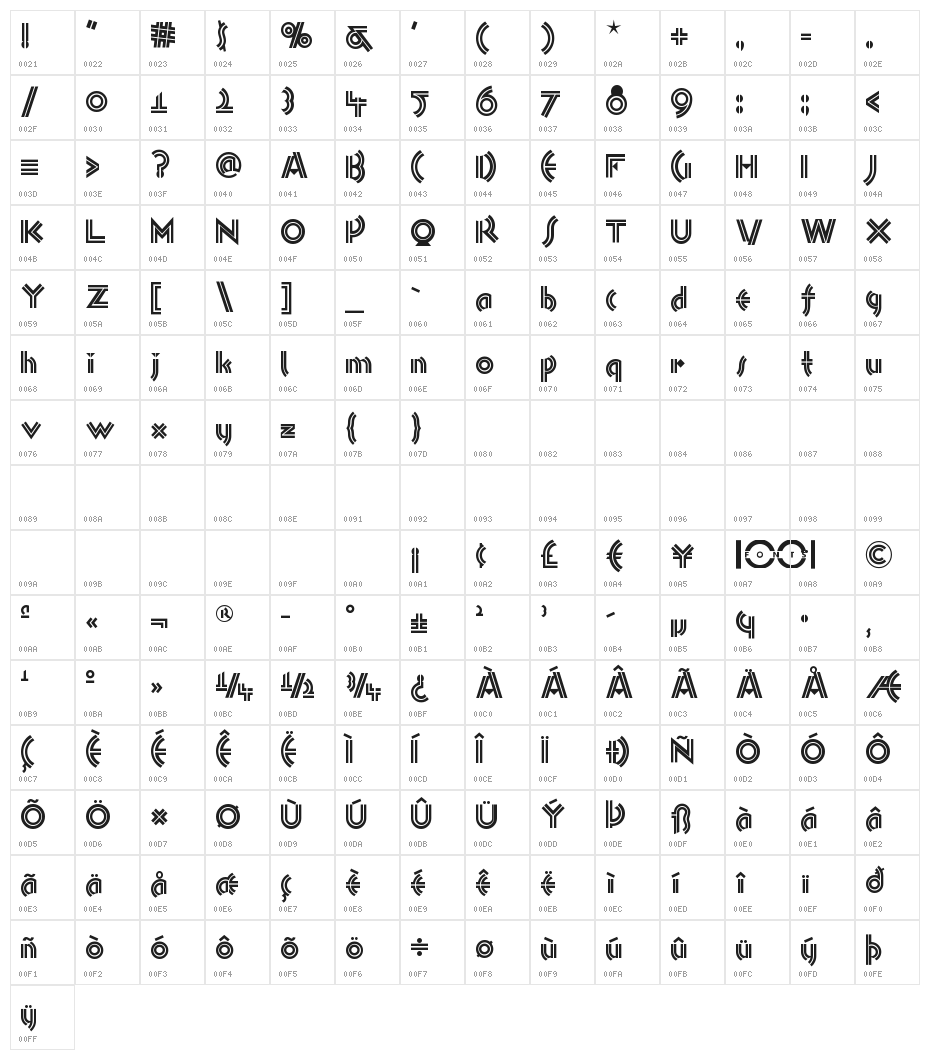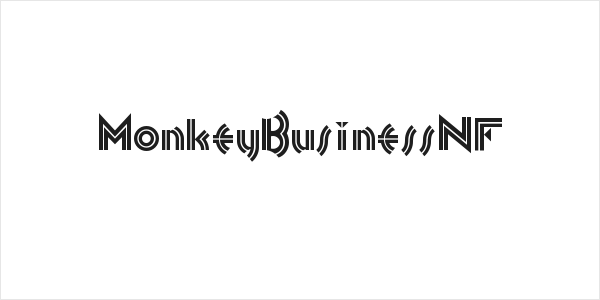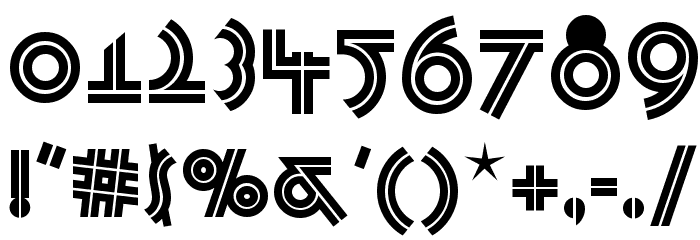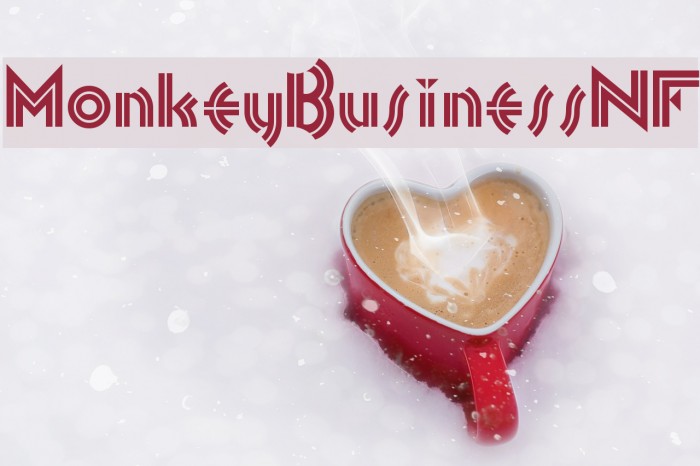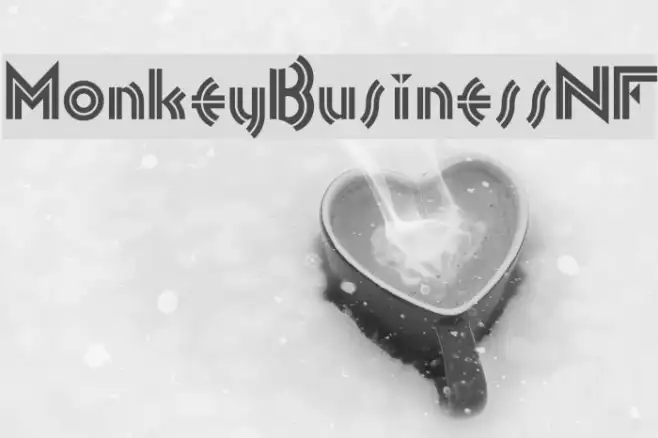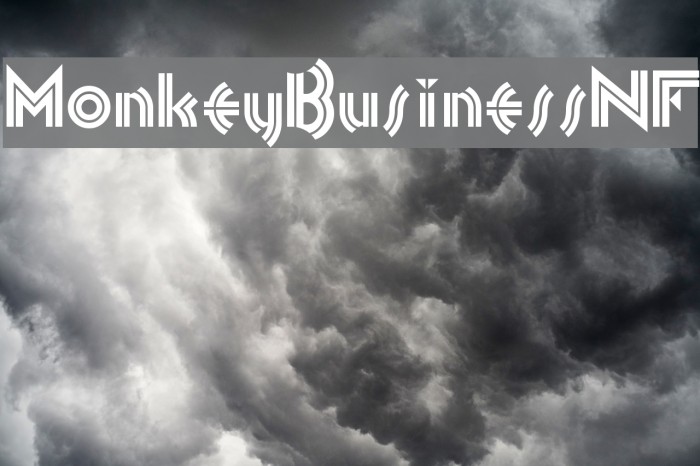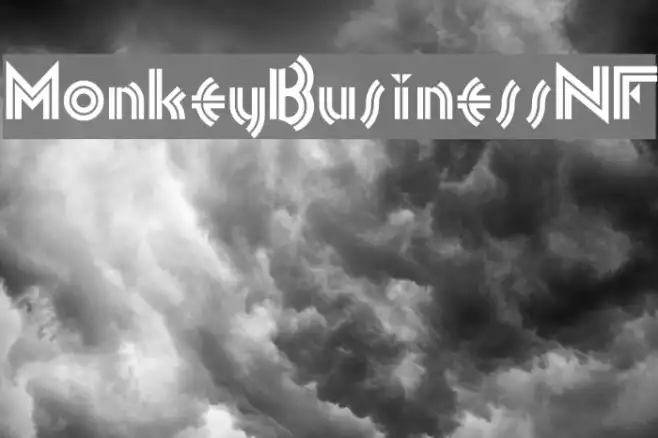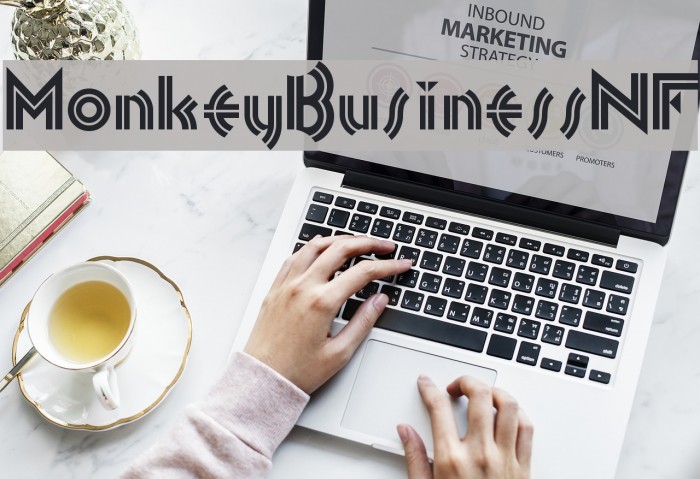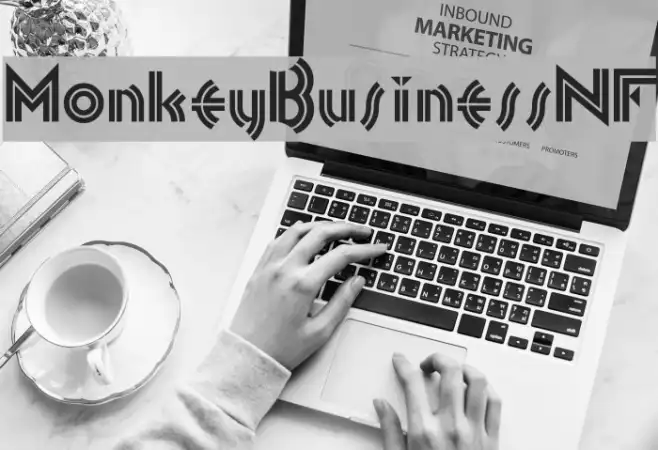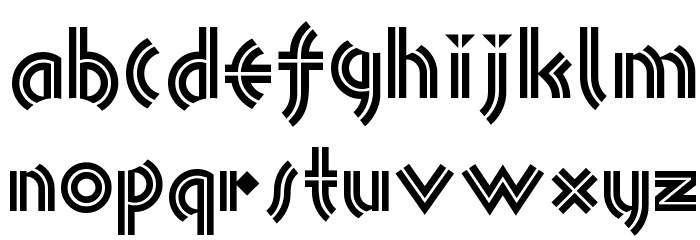
MonkeyBusinessNF Font
MonkeyBusinessNF Description
This font features a bold and geometric design with a strong Art Deco influence. The characters are constructed with sharp angles and clean lines, creating a sense of movement and modernity. The uppercase letters are particularly striking, with unique embellishments that add a decorative flair. The lowercase letters maintain the same geometric style, ensuring consistency across the typeface. Numbers and special characters are equally bold, with some featuring circular and angular elements that enhance the overall aesthetic. The font's distinct style makes it ideal for projects that require a touch of elegance and sophistication.
| Overall Style | Vintage, Modern |
| Proposed Projects | Ideal for branding, posters, album covers, and any project seeking a vintage yet modern aesthetic. |